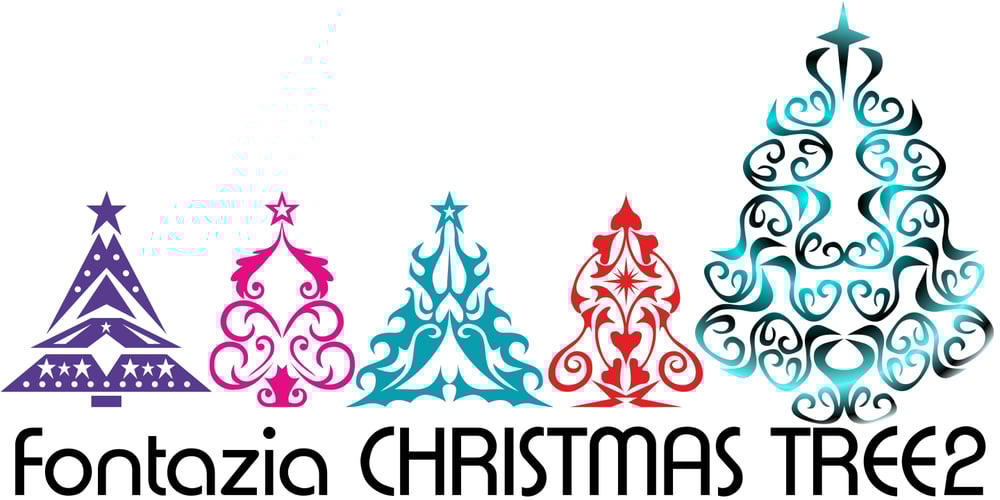
Fontazia Christmas Tree 2
Fontazia Christmas Tree 2 font
Fontazia Christmas Tree 2 Font Family was designed by Denise Koehler and published by Deniart Systems. Fontazia Christmas Tree 2 contains 1 styles and family package options. Add more flair to the holiday season with Fontazia Christmas Tree 2 featuring 62 elegantly simple tree illustrations. These stylish tree motifs are sure to add elegance to all your holiday designs.